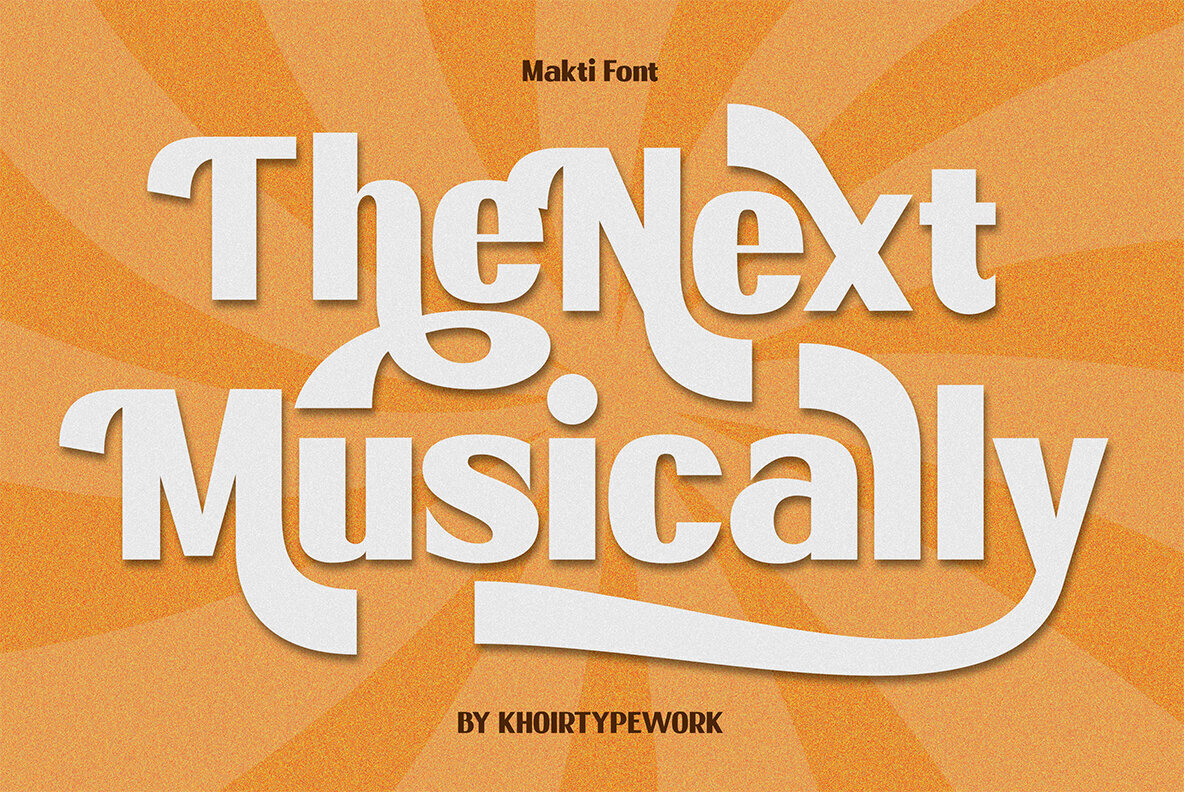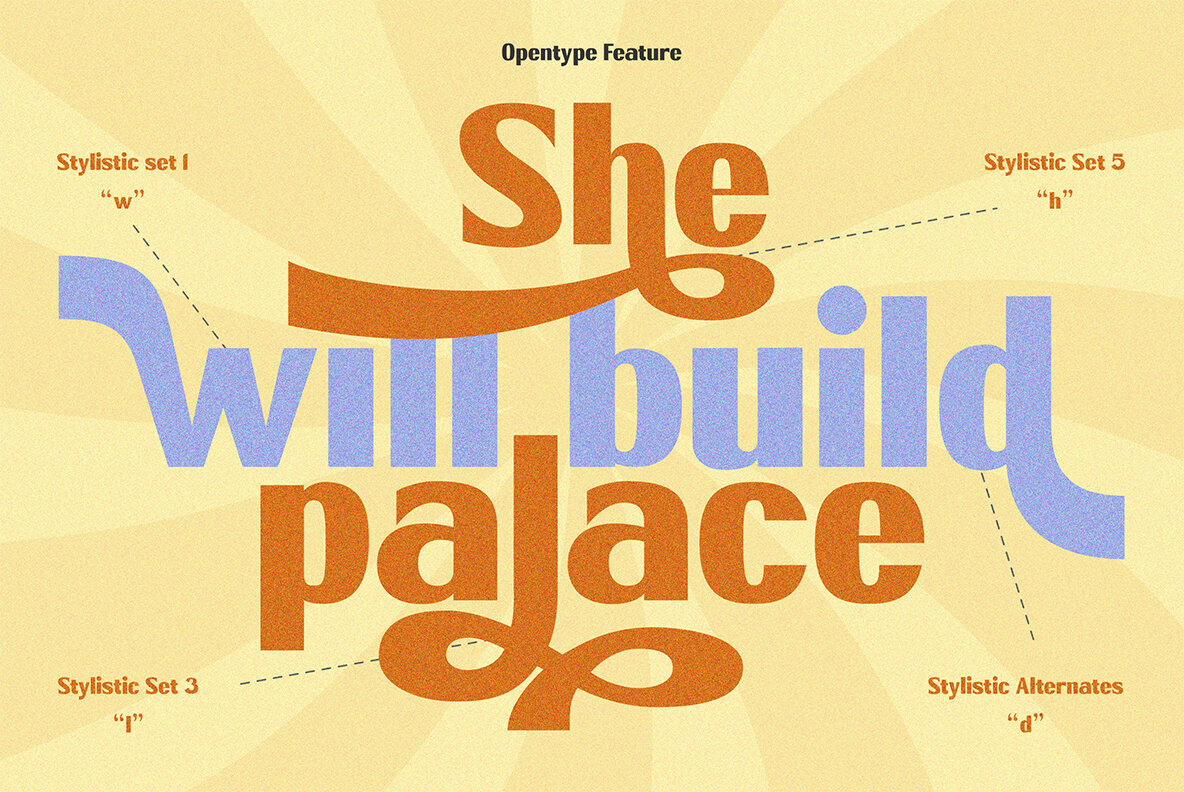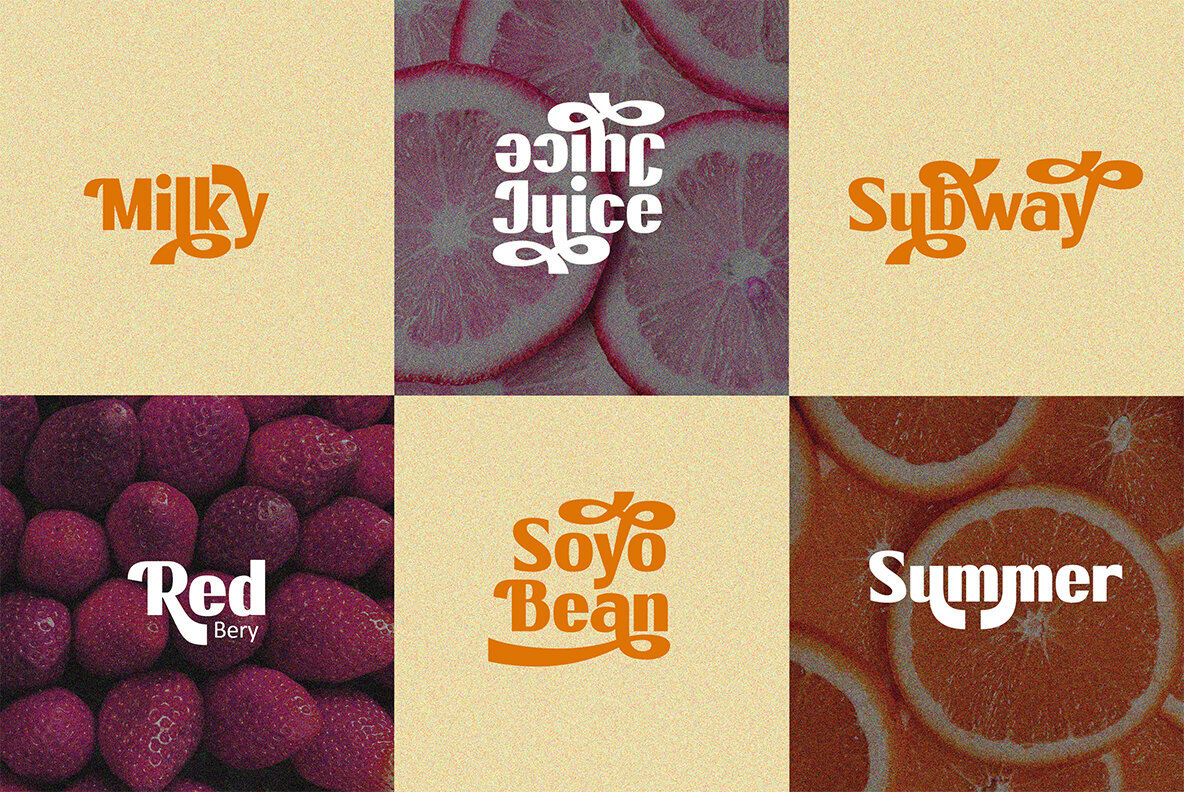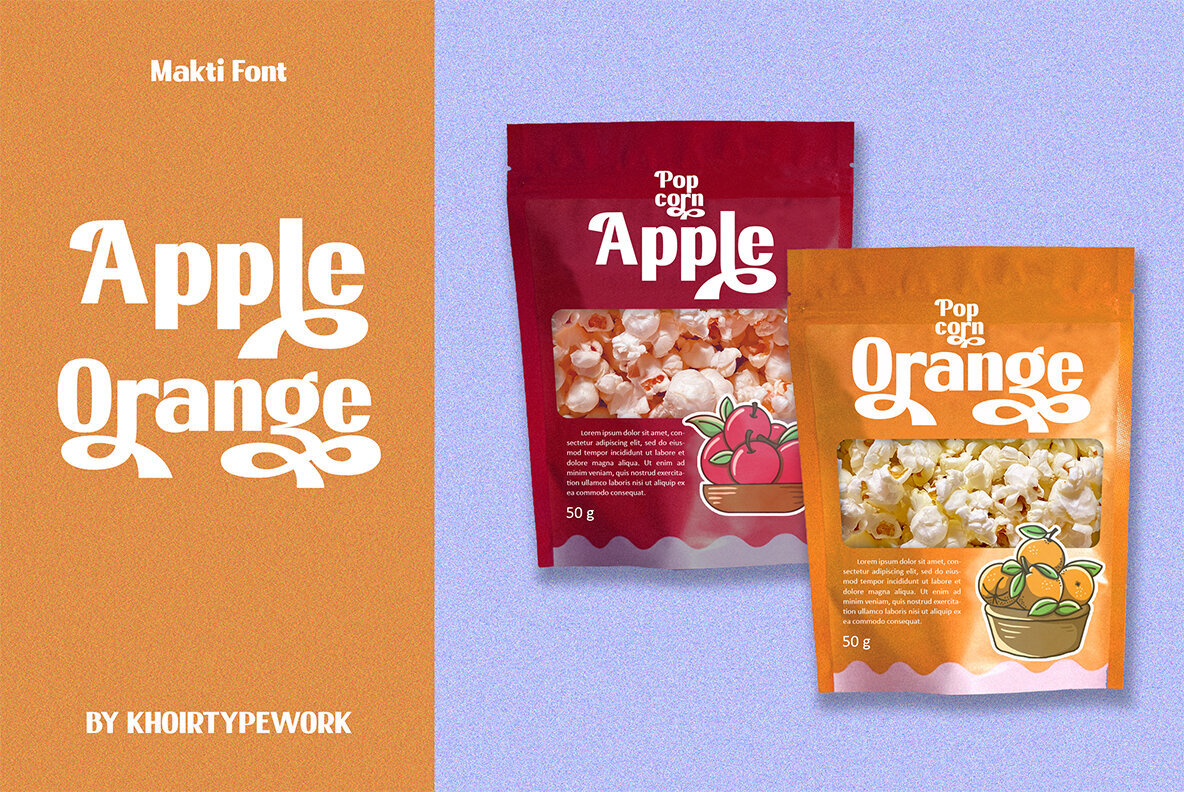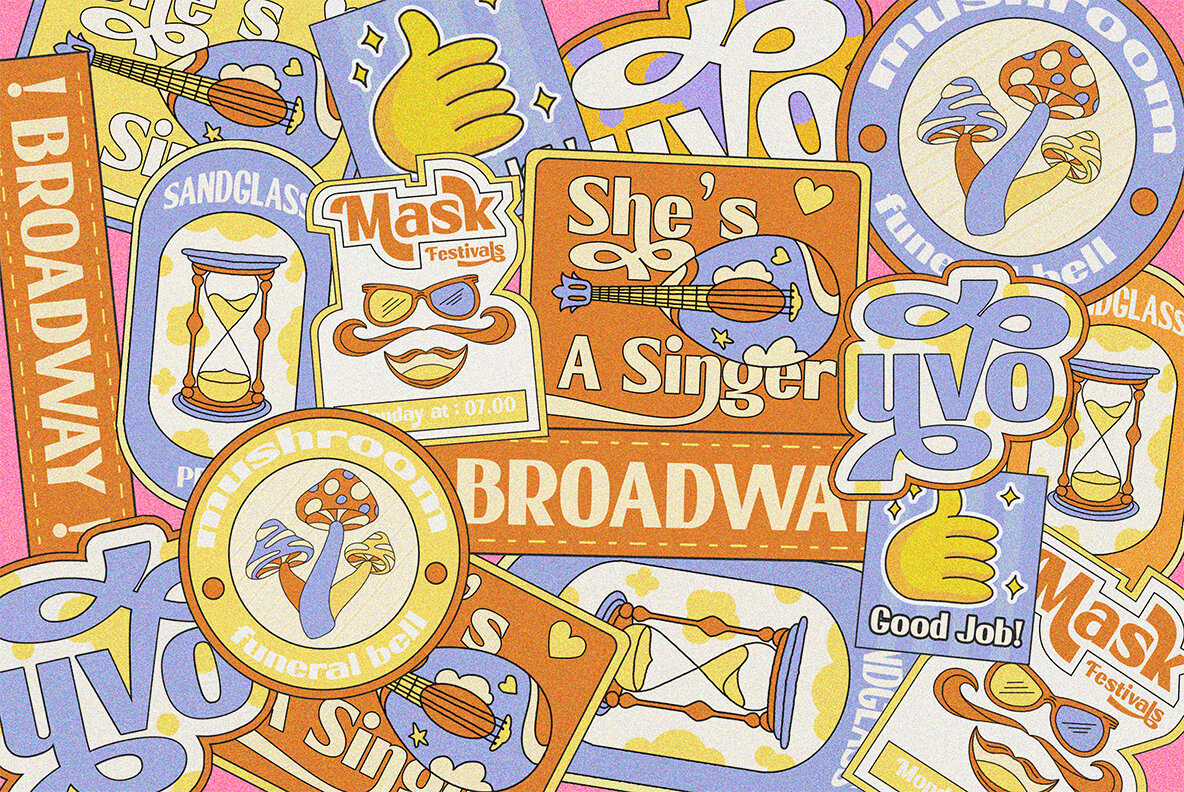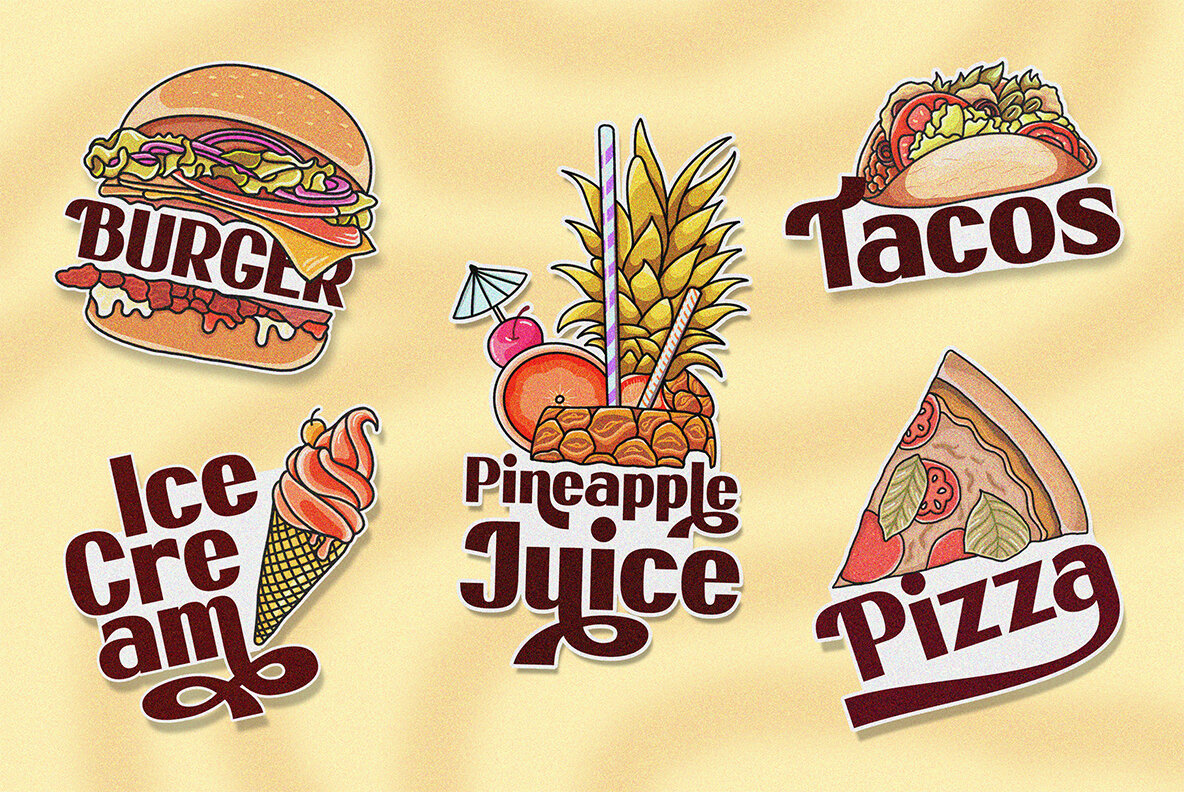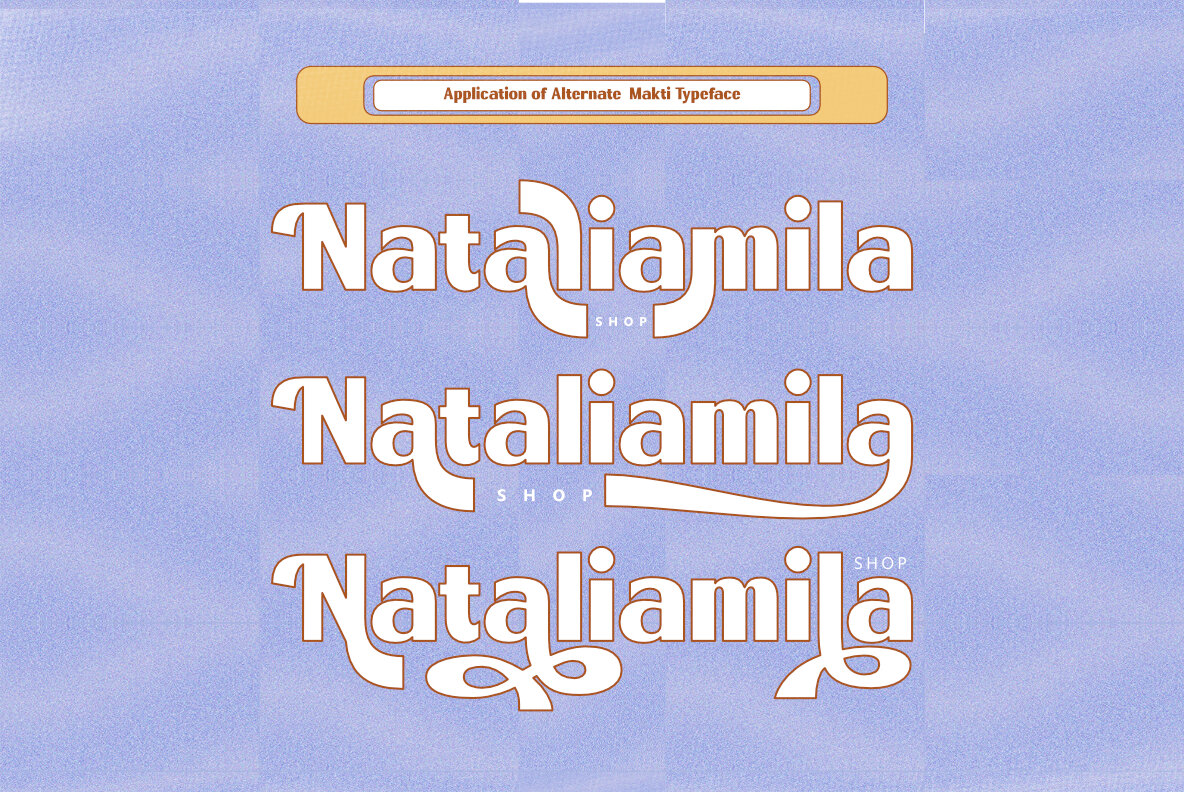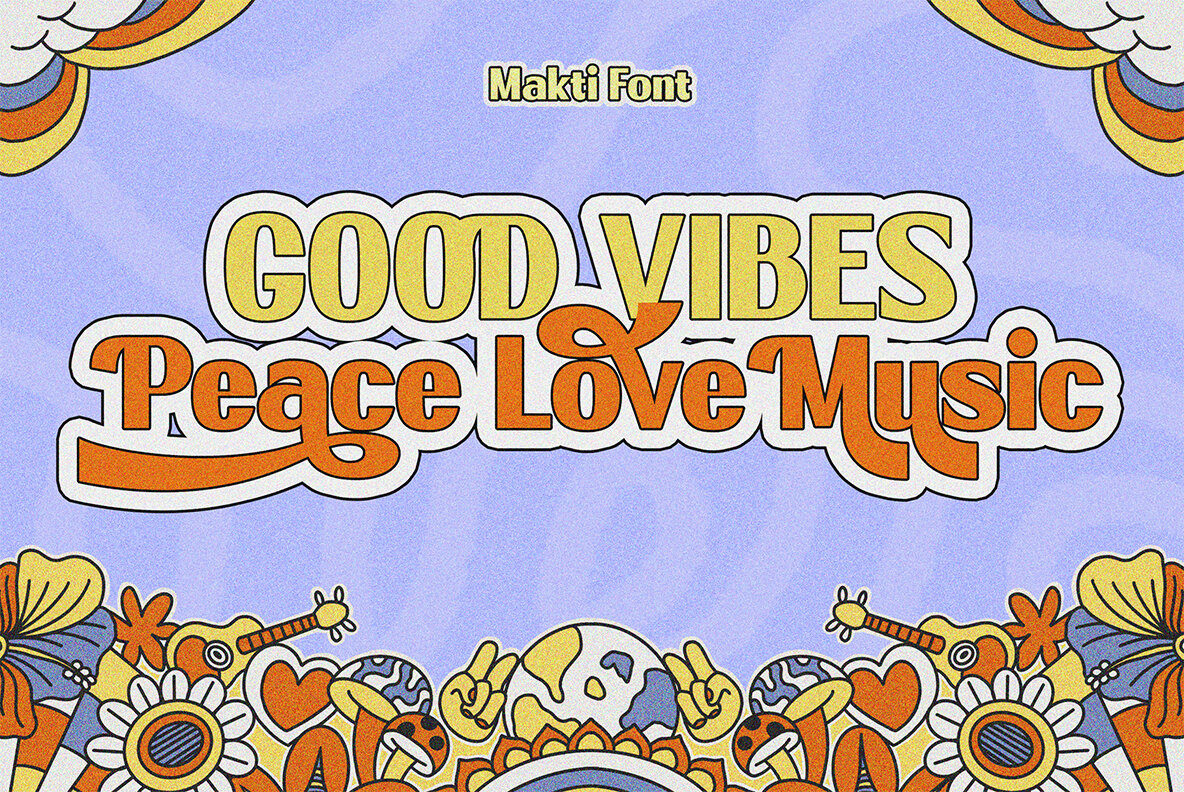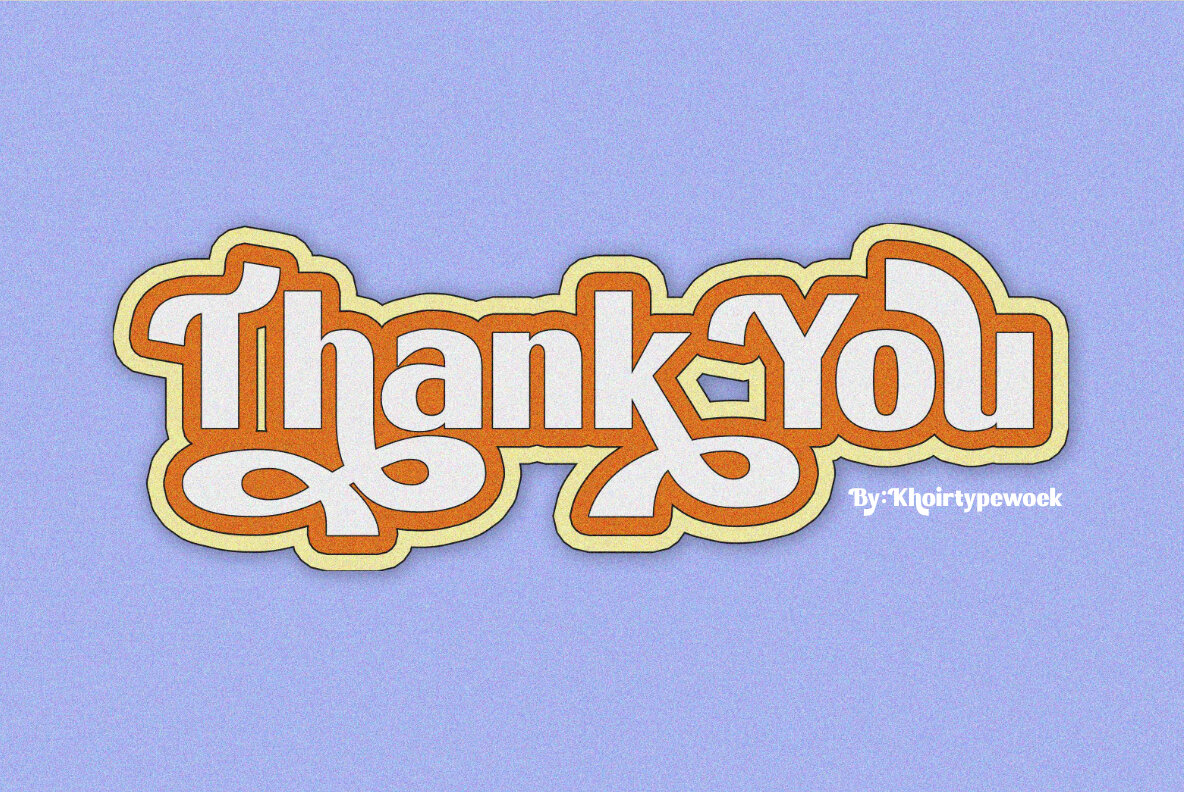
Makti Font
Makti
Makti is a bold retro style font that is inspired by typographic designs from the 60's to 70's. It has a variety of unique alternatives that make it look cooler and make it easier for you to explore your work.
The Makti font includes uppercase and lowercase characters, and it supports 75+ languages.